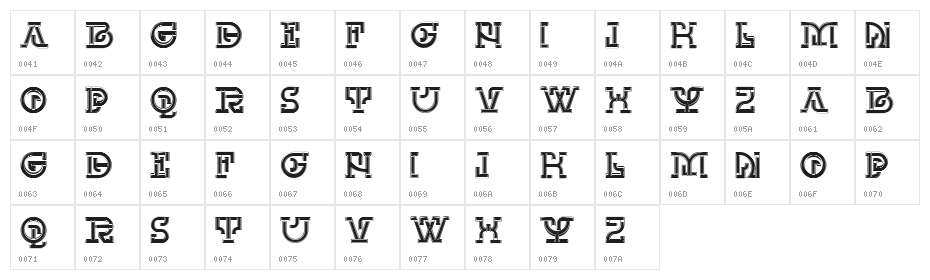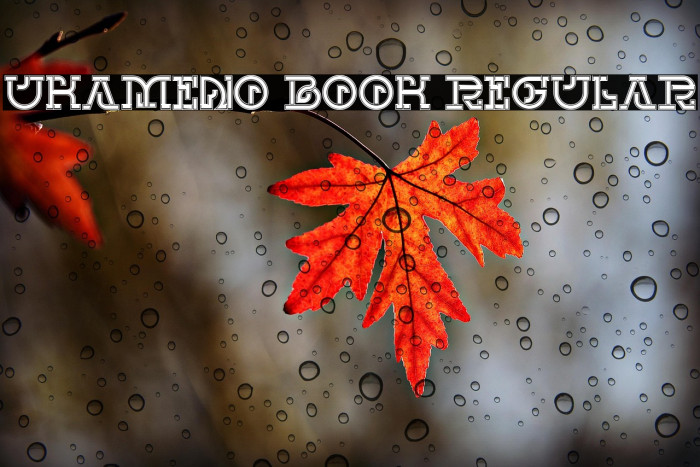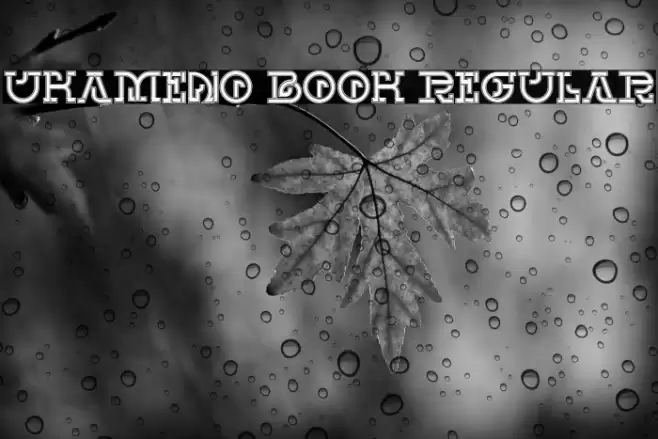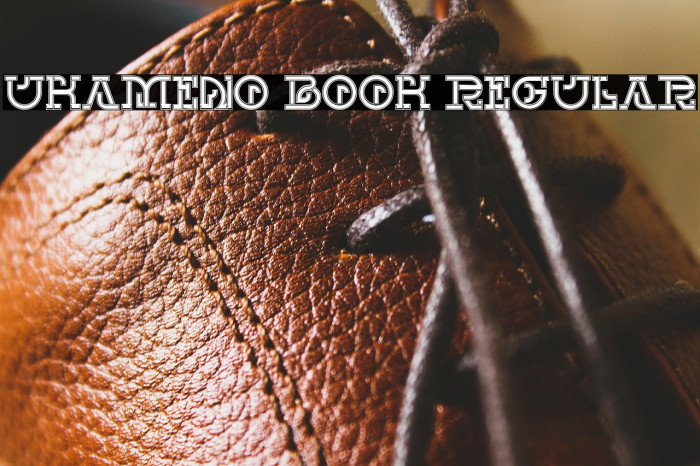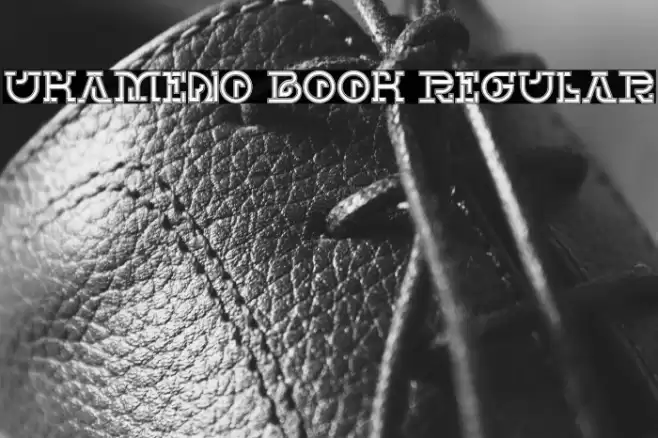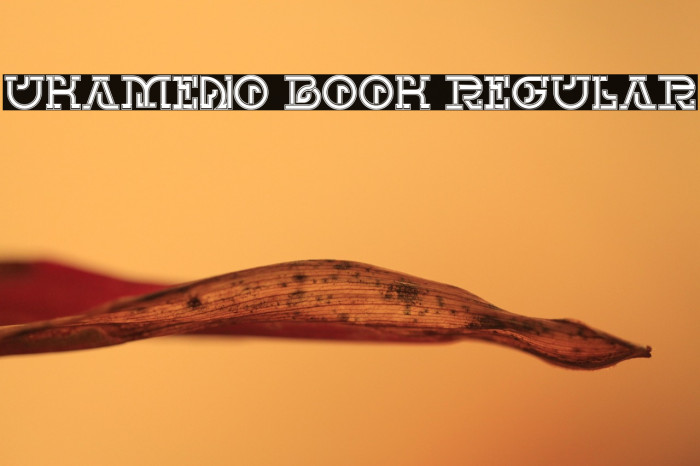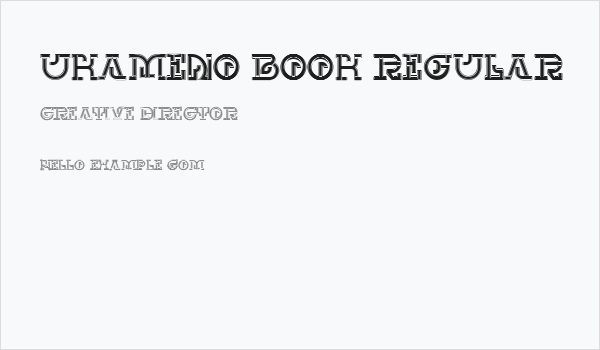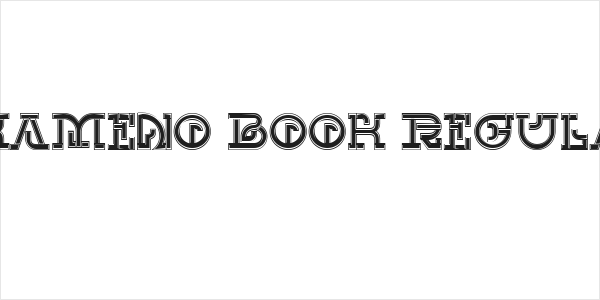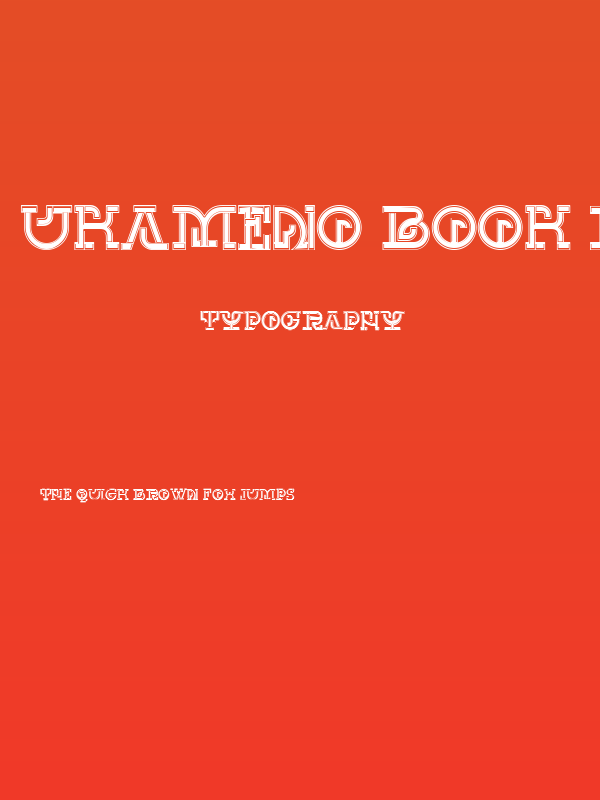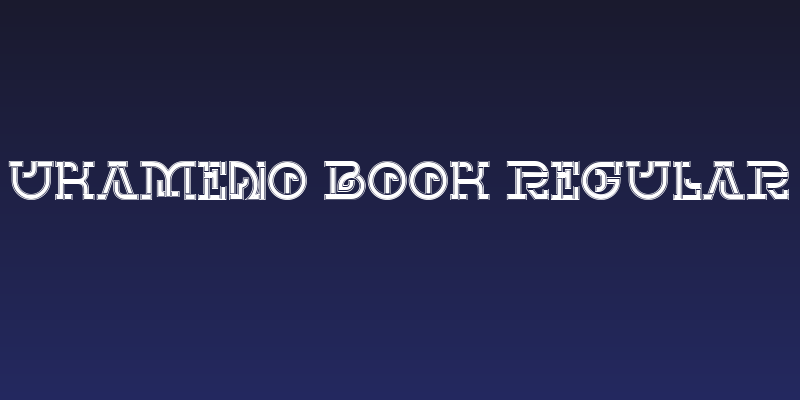
UKAMENO Book Regular Font
UKAMENO Book Regular Description
This font features a bold, decorative style with a unique double-line structure that creates a striking visual effect. The characters are designed with a geometric precision, incorporating both sharp angles and smooth curves. The uppercase letters are particularly prominent, with a strong presence that makes them ideal for attention-grabbing headlines. The font's intricate detailing and layered appearance give it a sense of depth and dimension, making it suitable for projects that require a bold and artistic touch. The overall design is modern yet retains a classic appeal, making it versatile for various creative applications.
| Proposed Projects | Ideal for posters, logos, branding, and any design requiring a bold statement. |